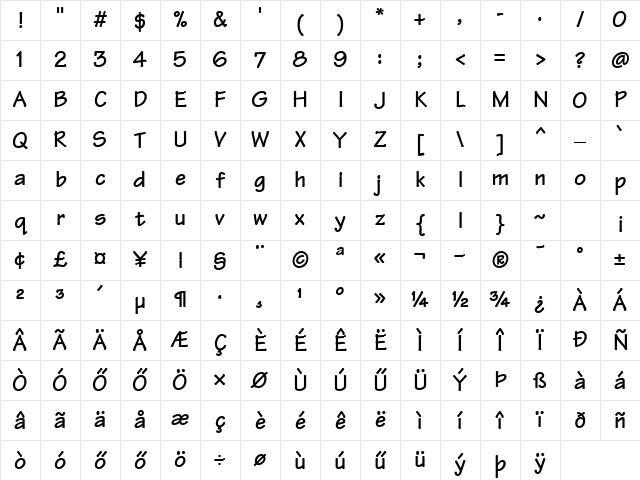
H_Tekton Bold
H_Tekton Family
H_Tekton Bold
Complete H_Tekton Bold glyph index. Displaying only characters natively supported by H_Tekton Bold font.
Design Context for H_Tekton
H_Tekton is a composed and adaptable typeface that performs quietly and consistently across a wide range of design contexts. Its bold stroke weight gives it real presence on the page.